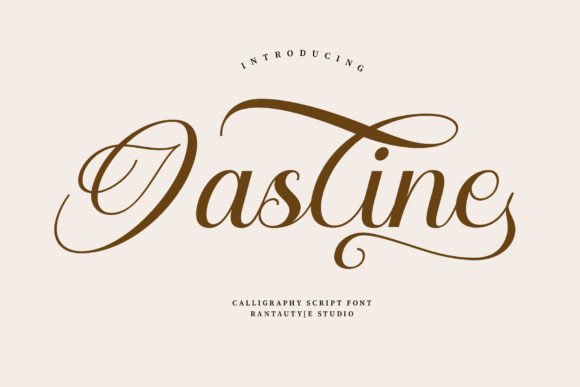
Jasline: Elevate Your Brand with Elegant Script Fonts
I still remember the afternoon I sat in my small studio, surrounded by half-finished label designs for a local artisan candle maker. She had beautiful products—soy wax blends with delicate floral notes—but her packaging felt disconnected from the quality of the scent inside. The typography was stiff, generic, and failed to capture the warmth she wanted to convey. That is when I introduced her to Jasline. As a creative consultant, I have seen how the right typeface can transform a business’s visual identity overnight. Jasline is a calligraphy script font with beautiful flow character that instantly brought grace and elegance to her design project. It was not just about making things look pretty; it was about creating a cohesive brand story that customers could feel.
Why Jasline Is the Perfect Script Handwritten Font for Wedding and Feminine Brands
When you are building a brand identity for weddings, beauty, or lifestyle products, the emotional tone of your typography matters immensely. Jasline is a beautiful choice for any creative endeavor where softness and sophistication are key. Inspired by wedding and feminine aesthetics, this font carries a natural rhythm that mimics the stroke of a high-quality brush pen. Unlike many digital scripts that feel rigid or overly perfect, Jasline retains the organic imperfections of true handwriting. This authenticity helps small business owners connect with their audience on a personal level. Whether you are designing save-the-date cards, bridal shower invitations, or boutique clothing tags, the fluid lines of Jasline communicate care and attention to detail. It tells your customer that your product is handmade, curated, and special. For businesses in the wedding industry, using a font that exudes romance without being cliché is a delicate balance, and Jasline strikes it effortlessly.
Transforming Product Packaging and Labels with Elegant Calligraphy
One of the most impactful ways to use Jasline is on physical product packaging. In the world of e-commerce and retail, your packaging is often the first tangible interaction a customer has with your brand. I recently helped a skincare startup refresh their jar labels. They needed a font that would stand out on a crowded shelf but remain legible enough to read the product name at a glance. Jasline provided the perfect solution. Its beautiful flow character allows it to work wonderfully as a display font for short phrases, such as "Lavender Mist" or "Rose Glow." However, readability is crucial. When using script handwritten fonts on small labels, it is best to keep the text size large and the background clean. I recommend pairing Jasline with a simple, clean sans serif font for the ingredient lists and secondary information. This contrast ensures that the elegance of the script does not compromise the functionality of the label. The result was a packaging design that looked premium and trustworthy, encouraging customers to pick up the product and examine it closer.
Creating Consistent Social Media Graphics and Digital Ads
In today’s digital landscape, your online presence must be as polished as your physical products. Jasline is an excellent tool for creating consistent social media graphics, particularly for platforms like Instagram and Pinterest where visual appeal drives engagement. I often advise my clients to use Jasline for quote graphics, promotional banners, and story highlights. Because the font has such a distinct personality, it helps create a recognizable visual style. When followers see that specific elegant curve on their feed, they immediately associate it with the brand. However, digital screens require careful handling of script fonts. Avoid using Jasline for long paragraphs or small body text, as the intricate details can become blurry on mobile devices. Instead, use it for headlines, calls to action, or decorative accents. For example, a café owner might use Jasline on an Instagram post announcing a new seasonal menu item, pairing it with a high-quality photo of the drink. The combination of the flowing script and the vibrant image creates a mouth-watering, inviting aesthetic that encourages clicks and shares.
Pairing Jasline with Modern Typography for Professional Branding
A common mistake small business owners make is using too many decorative fonts at once. To maintain a professional look, it is essential to understand font pairing. Jasline shines when it is supported by a neutral, modern typography style. Since Jasline is a calligraphy script font with beautiful flow character, it demands space to breathe. I typically recommend pairing it with a geometric sans serif or a classic serif font. For a contemporary, minimalist brand, a light-weight sans serif provides a clean backdrop that lets the elegance of Jasline take center stage. For a more traditional or luxury feel, a high-contrast serif font can complement the curves of the script. This balance creates visual hierarchy, guiding the viewer’s eye to the most important information first. Whether you are designing business cards, flyers, or website banners, this pairing strategy ensures your design looks intentional and sophisticated. It prevents the layout from feeling cluttered or chaotic, which is vital for establishing trust with potential customers.
Practical Tips for Using Jasline in Commercial Design Projects
Ultimately, choosing the right font is one of the most powerful decisions you can make for your business. Jasline offers more than just aesthetic appeal; it provides a voice for your brand. It speaks of elegance, grace, and human touch. Whether you are refreshing a menu, printing thank-you cards, or updating your online shop banner, Jasline brings a level of polish that resonates with customers. It transforms ordinary designs into memorable experiences. As you continue to build your brand, let tools like Jasline help you tell your story with clarity and style. The right typography does not just decorate your content; it elevates your entire business presence, making it feel more established, trustworthy, and inviting. Take the time to experiment with Jasline in your next project, and watch how its beautiful flow character enhances the perceived value of your work.